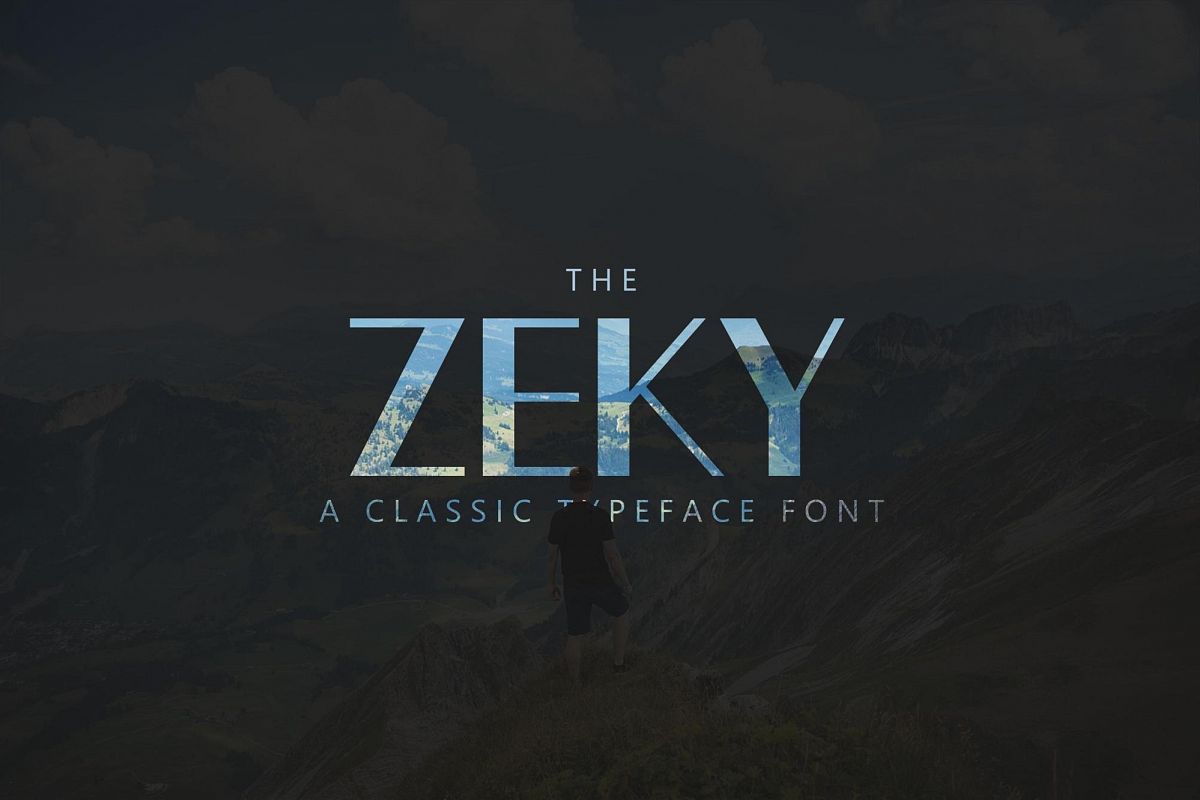
Zeky Typeface FontWelcome to Zeky! Introducing the Zeky Typeface Font. Comes witth classic character set style. You can use this font for every design project you have. Very perfectly for logos, magazine, header, brand identity, t-shirt and etc.